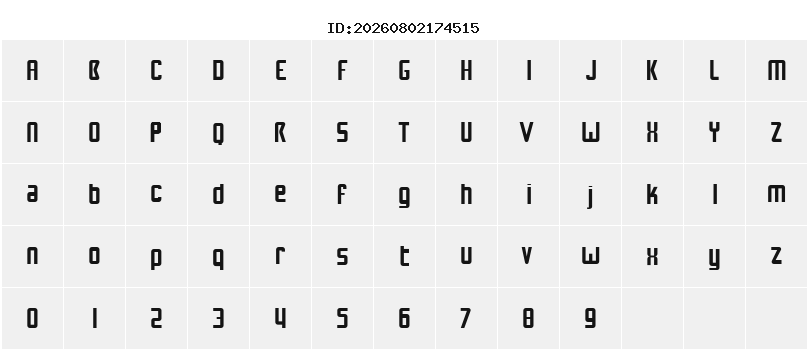
• Font Name: NuWave BV 2.0
• Full Font Name: NuWave BV 2.0
NuWave BV 2.0.ttf is a modern, elegant sans-serif font designed for ultimate readability and visual harmony. Perfect for branding, headlines, web design, and print materials.